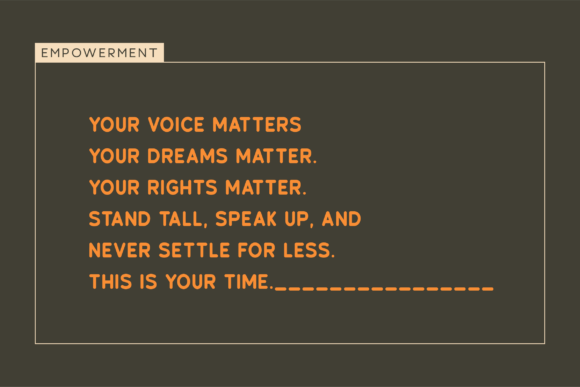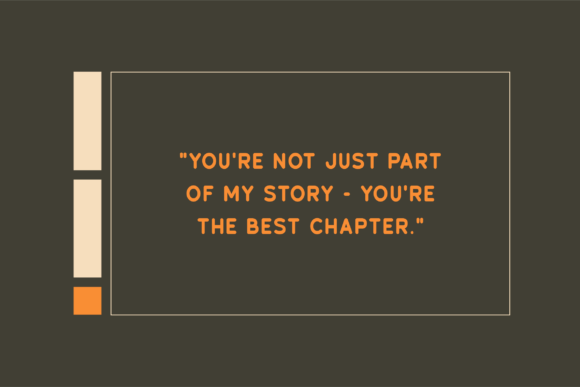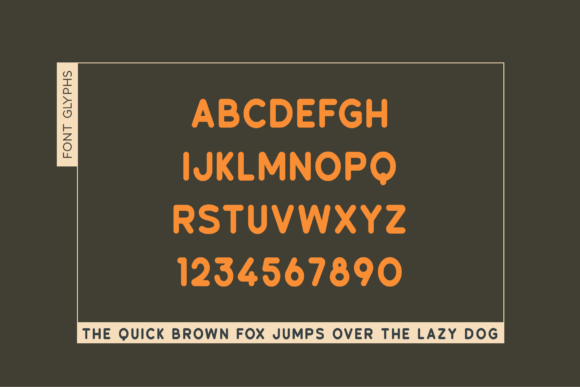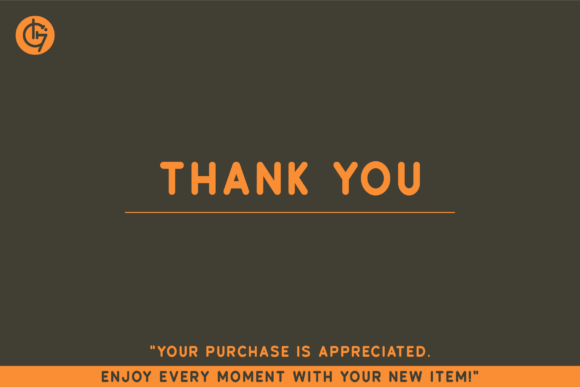
Introduction to Morecat Font
Breath life into your design projects with Morecat, an enchanting all-caps font riddled with charm and flair.
With a full suite of capital letters A-Z, digits 0-9, accented characters, and punctuation, Morecat offers limitless versatility Its simplicity and smoothness make it a go-to for a wide range of applications, from social media graphics to crafty ventures.
Key Features of Morecat Font
Why Choose Morecat Font?
Morecat Font offers exceptional quality and versatility, making it a valuable addition to your design toolkit. Whether you’re creating for personal projects or commercial use, Morecat Font delivers professional results.